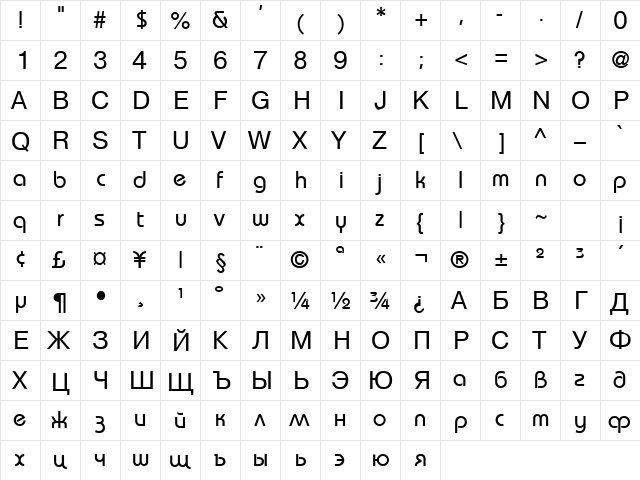
Bahamas Pragmatica Regular
Design Context for Bahamas Pragmatica Typeface
Bahamas Pragmatica is a composed and adaptable typeface that performs quietly and consistently across a wide range of design contexts.